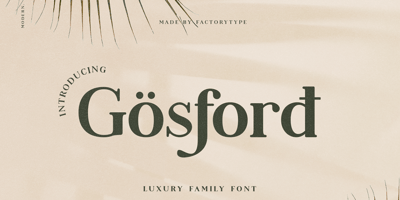
Gosford Font Family was designed by Wahyu Rahmawan and published by Factory738. Gosford contains 5 styles and family package options. Gosford is a luxury and elegant serif font. It teases your eyes with its curves yet still able to maintain its classy composure. The variety of weights provide a range of choices that will help you find the best typographic colour. The available stylistic Ligature and Alternate offer a perfect font for anything your creativity takes you. 5 Weights (Light, Regular, Semibold, Bold, Black) Basic Latin A-Z and a-z Numerals & Punctuation Stylistic Alternates & Ligatures Multilingual Support for ä ö ü Ä Ö Ü … OTF file format Free updates and feature additions Thanks for looking, and I hope you enjoy it.